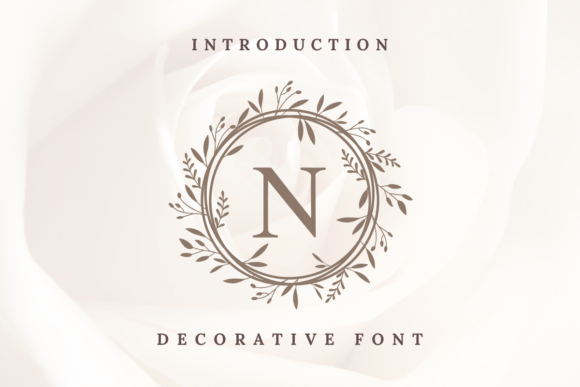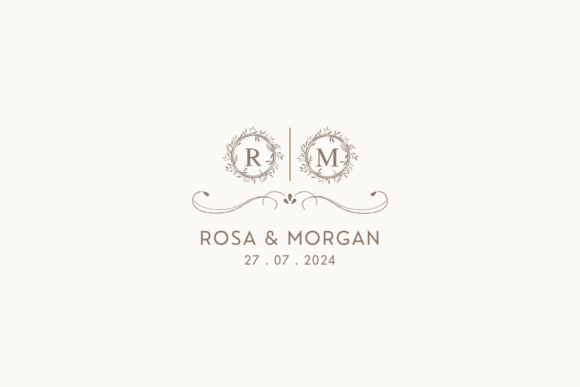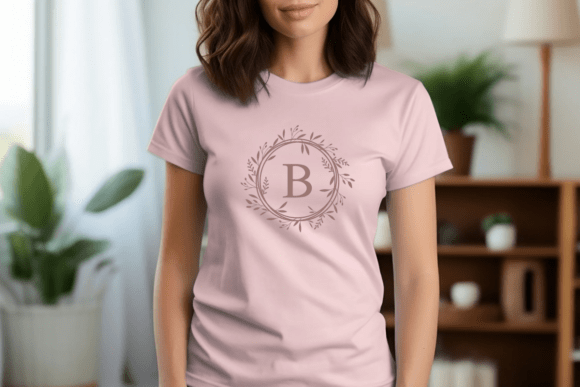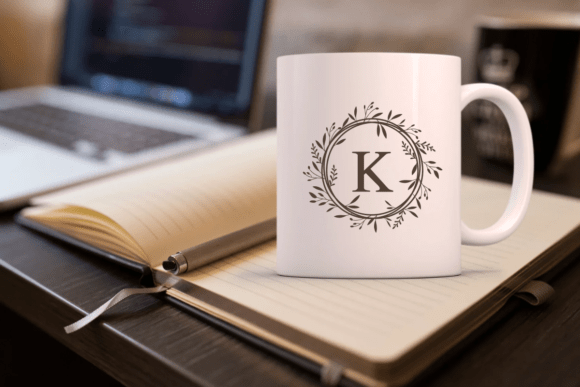
Flora Circle Monogram Font
About the Flora Circle Monogram Font
The Flora Circle Monogram Font is here to transform your projects with its distinctive character and style. Flora Circle Monogram is a gorgeous decorative font. You can use it for taking notes, writing a diary, or making greeting cards. However, you can still use it for other designs, such as banners, content, mugs, cards, shirts, stationery, social media posts, and more!
Flora Circle Monogram’s decorative nature makes it ideal for headlines, logos, short-form text on packaging, and social media graphics where its stylish charm can shine. It’s less suitable for body text or long paragraphs due to its ornate details, which can hinder readability. Avoid using it in UI design or situations requiring high legibility.
Its personality is distinctly elegant and playful; think whimsical branding or feminine product packaging. Consider pairing it with a clean sans-serif like Montserrat for a balanced contrast, or a classic serif such as Garamond for a more traditional feel. For a touch of modernity, a geometric sans-serif like Futura would complement its decorative curves.
Using Flora Circle Monogram effectively requires mindful consideration of context. Its strength lies in creating visual interest in short, impactful statements, rather than extended blocks of text.
Flora Circle Monogram Font Usage Examples
Flora Circle Monogram Font Example